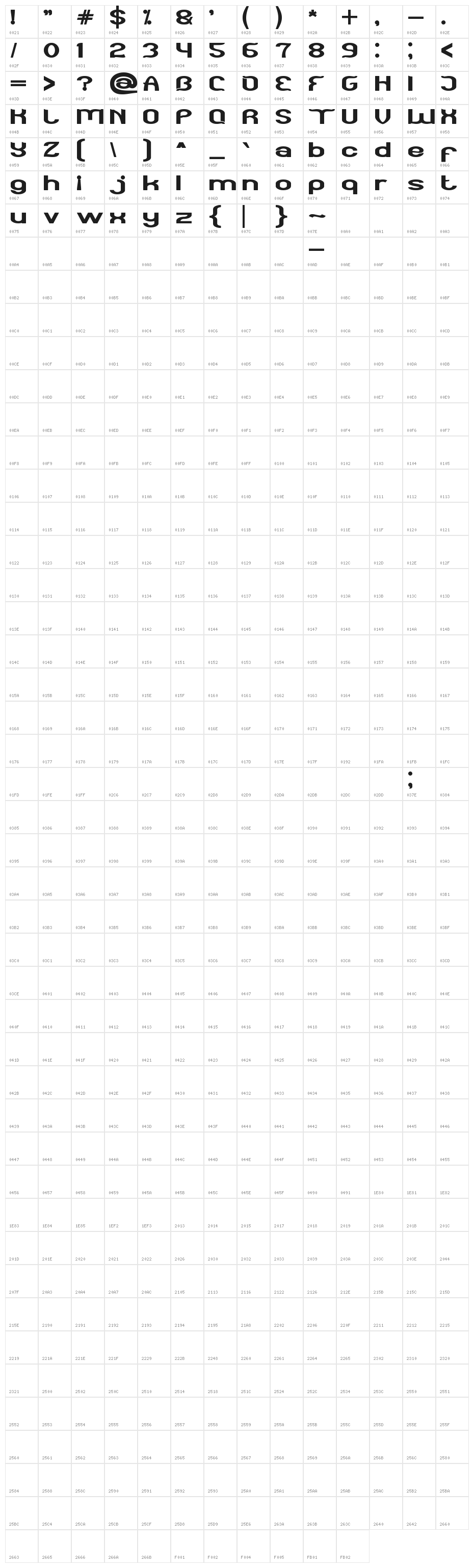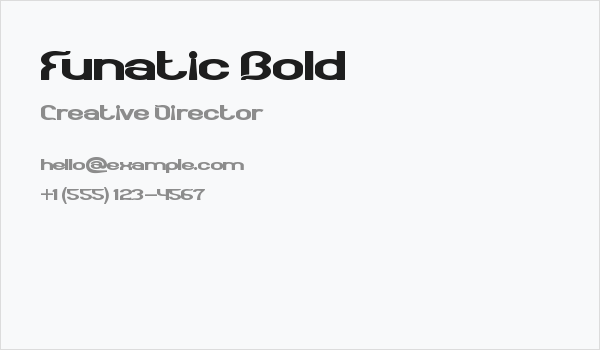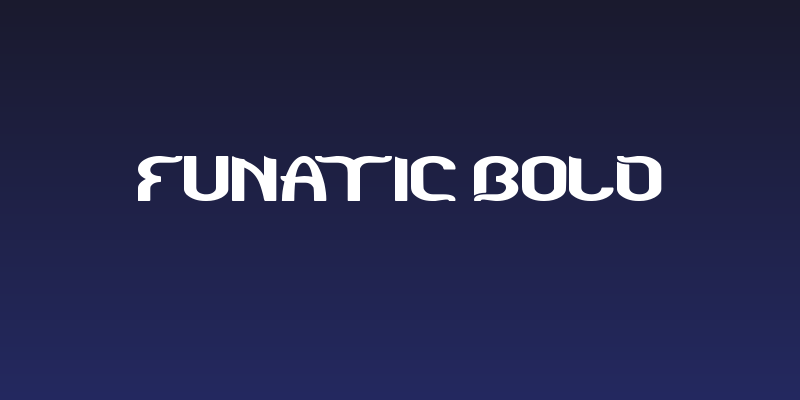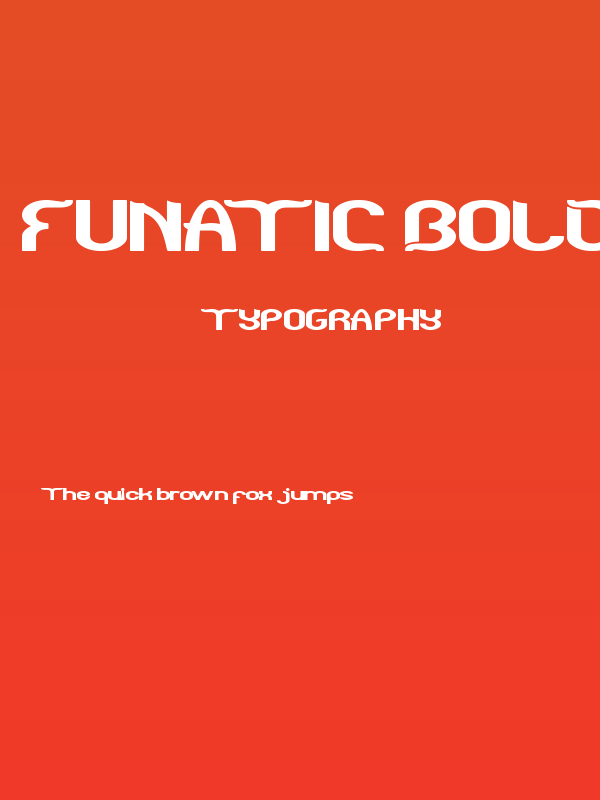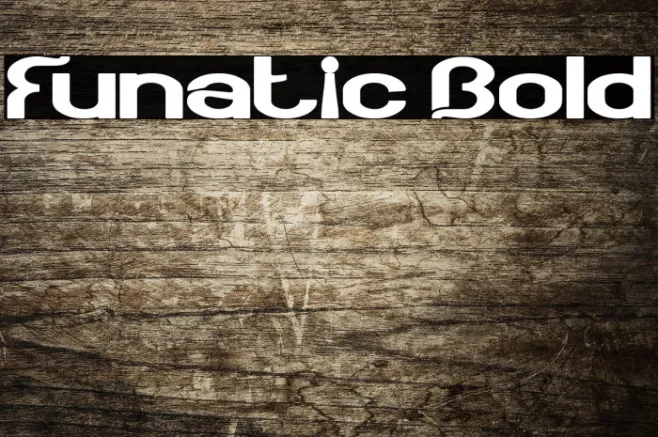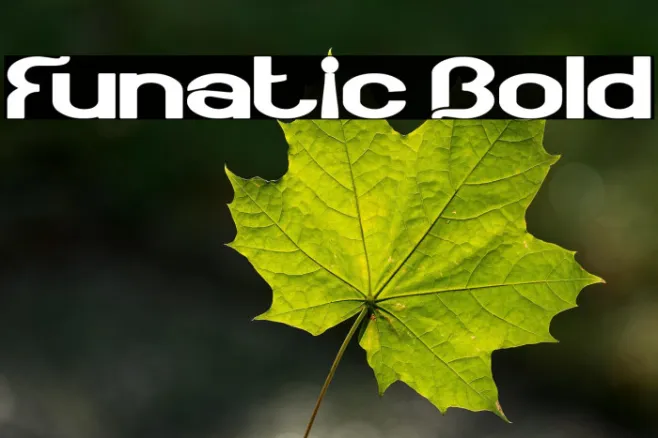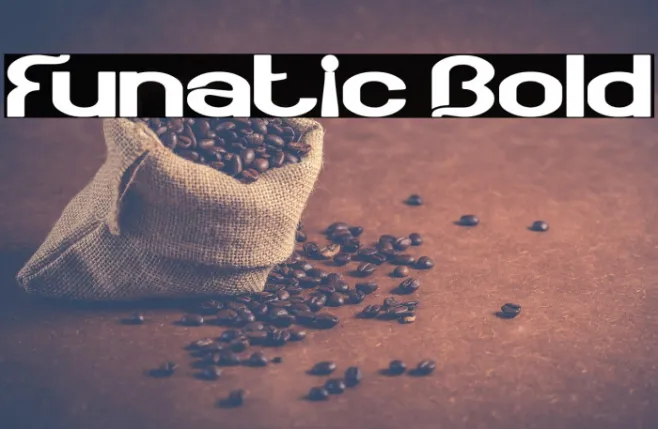
Funatic Bold Font
Funatic Bold Description
This font features a bold and playful design with a unique, rounded style that gives it a modern and energetic appearance. The characters are wide and have a consistent thickness, creating a strong visual impact. The uppercase and lowercase letters maintain a cohesive look, with slight variations that add to the font's charm. The numbers and special characters are designed to match the overall style, ensuring a uniform appearance across all text. The font's boldness makes it stand out, while its rounded edges soften its overall look, making it suitable for a variety of creative projects.
| Proposed Projects | Ideal for branding, posters, headlines, and any project requiring a bold, eye-catching typeface. |